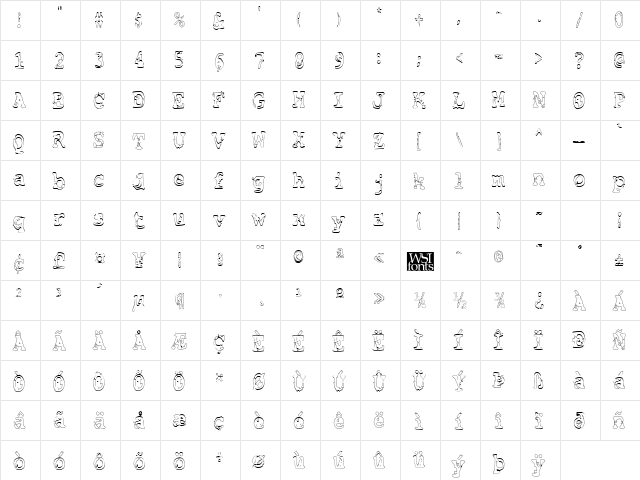
BasicGrungeHollowCond Regular
BasicGrungeHollowCond embraces imperfection — its rough, textured character adds raw authenticity to designs that want to feel lived-in and unconventional.
Suited to punk-influenced zines, underground music branding, streetwear, and raw, anti-corporate design.
Pro Tip: Pair BasicGrungeHollowCond with intentionally raw or lo-fi design elements. Fighting against it with overly polished surroundings will undermine its personality.